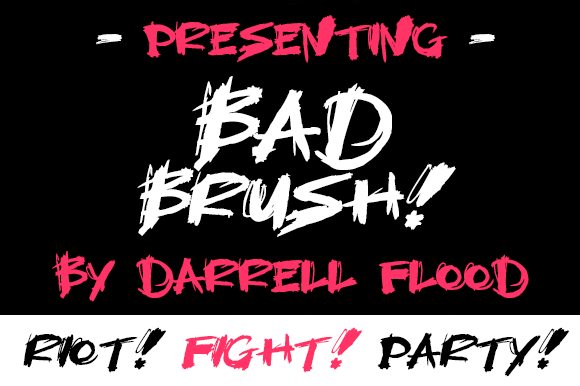
Unleash the untamed spirit of urban art with Bad Brush Font, a high-impact, hand-drawn display font that captures the raw energy of spray-painted masterpieces. Inspired by the vibrant streets and rebellious spirit of graffiti culture, Bad Brush Font brings a touch of edgy authenticity to your designs.
Step into a world where letters dance with untamed energy, where each stroke tells a story of passion and rebellion. Bad Brush Font's bold and expressive characters evoke the gritty charm of urban alleys, the pulse-pounding rhythm of hip-hop, and the unyielding spirit of street art.
With Bad Brush Font, transform your words into captivating visuals that command attention and leave a lasting impact. Let your designs speak volumes with the raw and rebellious energy of this extraordinary font.
Bad Brush Font is a versatile workhorse, ready to conquer any design challenge you throw its way. Whether you're creating logos that demand attention, posters that sizzle with energy, or social media graphics that cut through the noise, Bad Brush Font delivers every time.
Embrace the power of Bad Brush Font and unlock a world of creative possibilities. Let your designs radiate with the vibrant spirit of urban art and leave your audience in awe.